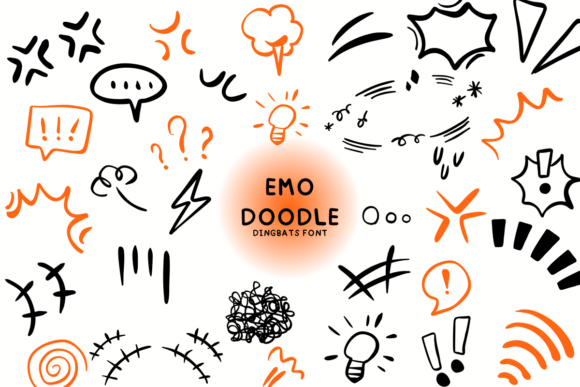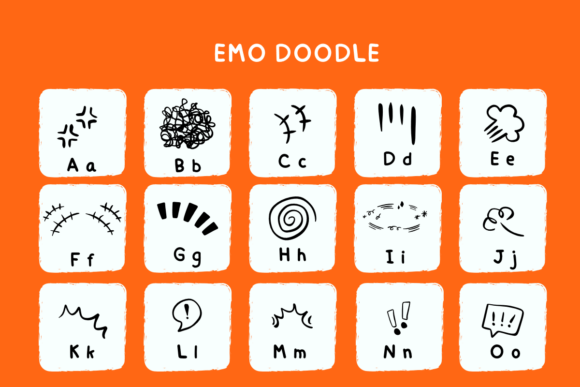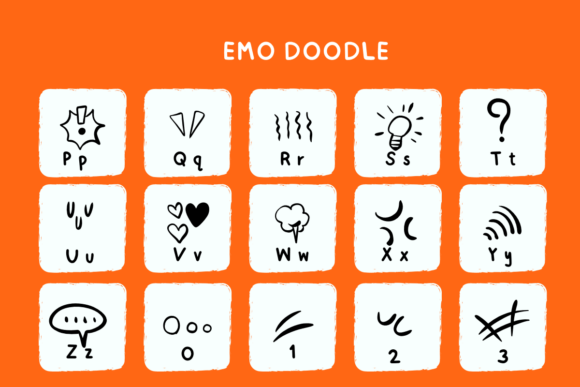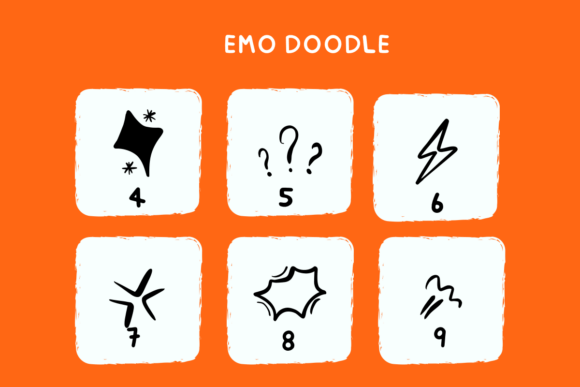
Emo Doodle Font
About the Emo Doodle Font
Introducing the Emo Doodle Font, a beautifully crafted typeface designed to elevate your creative projects. Immerse yourself in the playful charm of the Emo Doodle, a singular Dingbats font rendered in enchanting sketch style. As a gateway to sparking ingenuity, this font enriches your creative pursuits, infusing a dose of whimsy into every project. Whether its invitations, crafting, DIY endeavors, or lavish decorations, Emo Doodle effortlessly adds a touch of sophistication. Leverage its playful aesthetic for logo creation or simply, to breathe life into an abundance of creative concepts. Let the Emo Doodle font be the catalyst for your next flurry of inspiration.
Emo Doodle Font Usage Examples
Emo Doodle Font Example